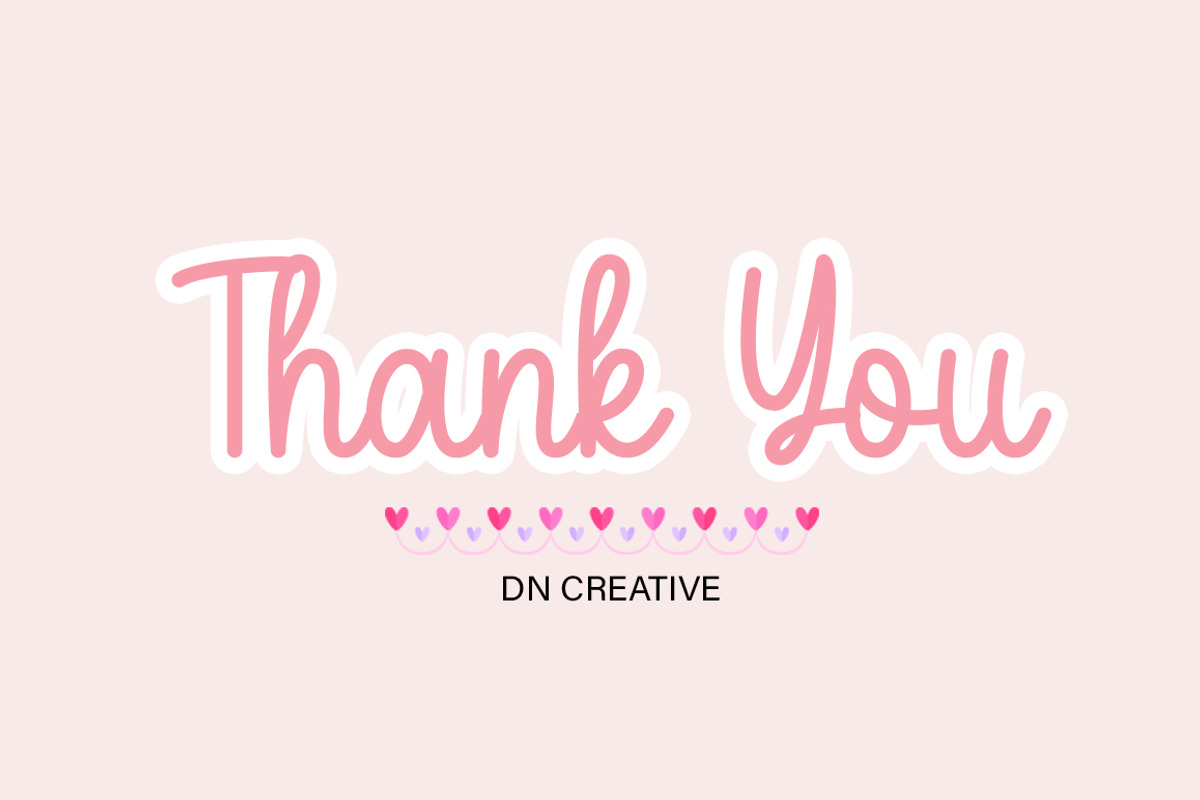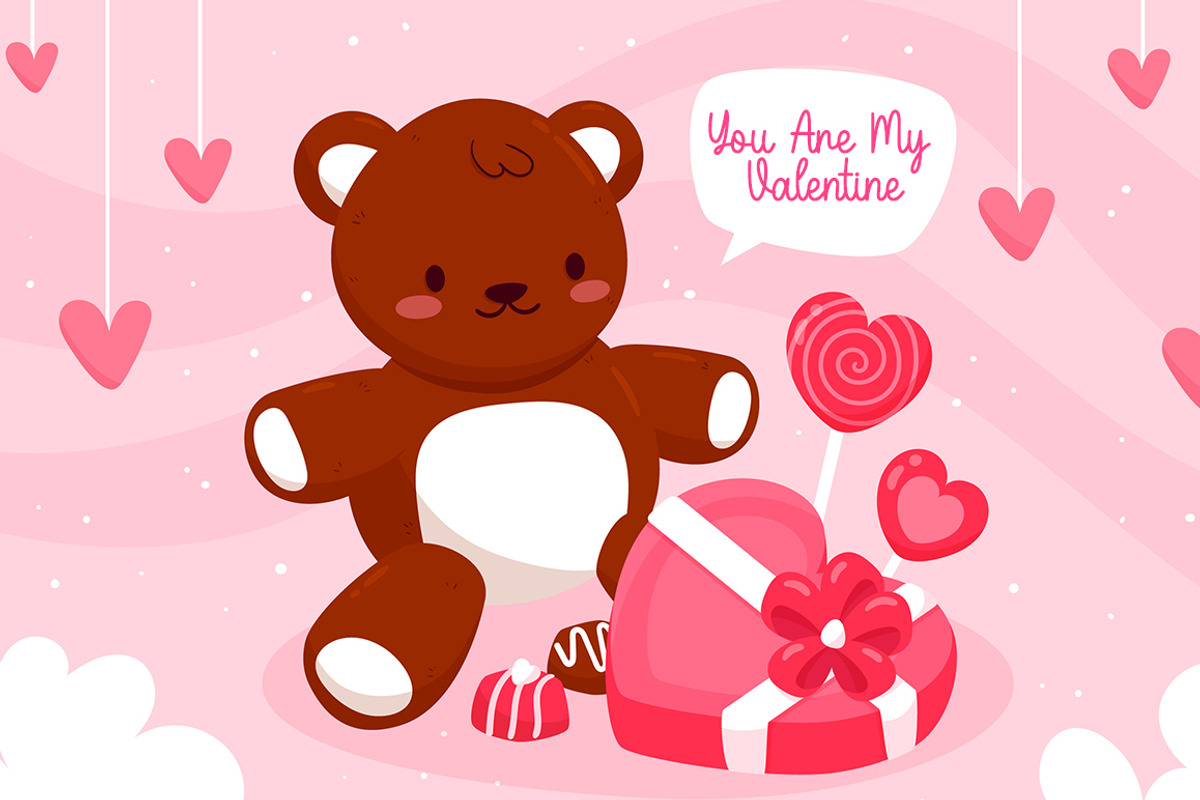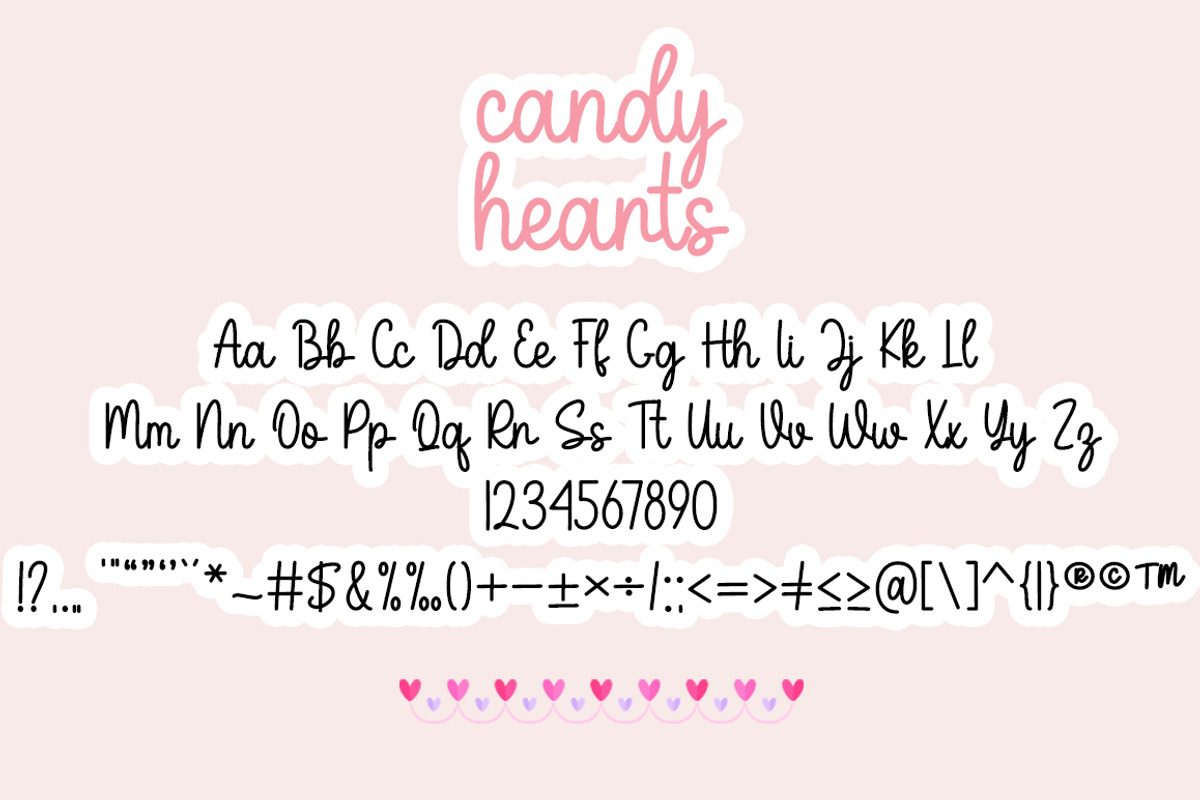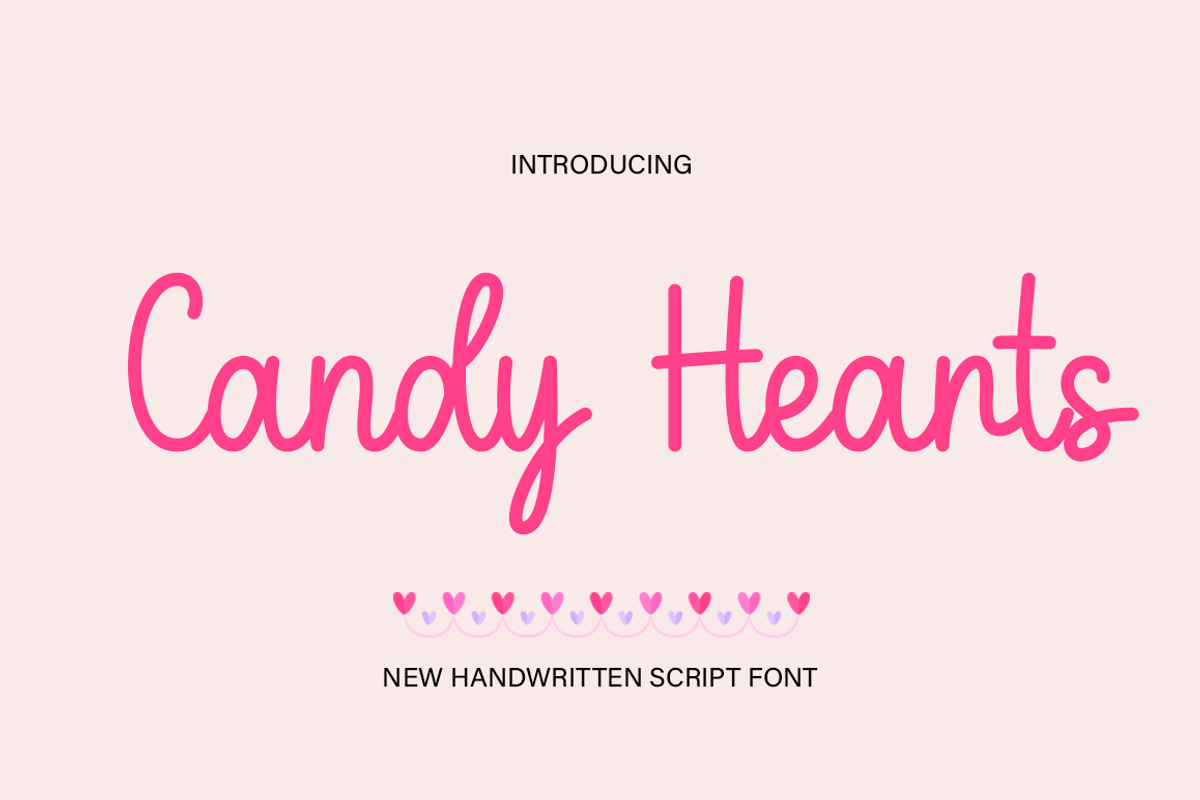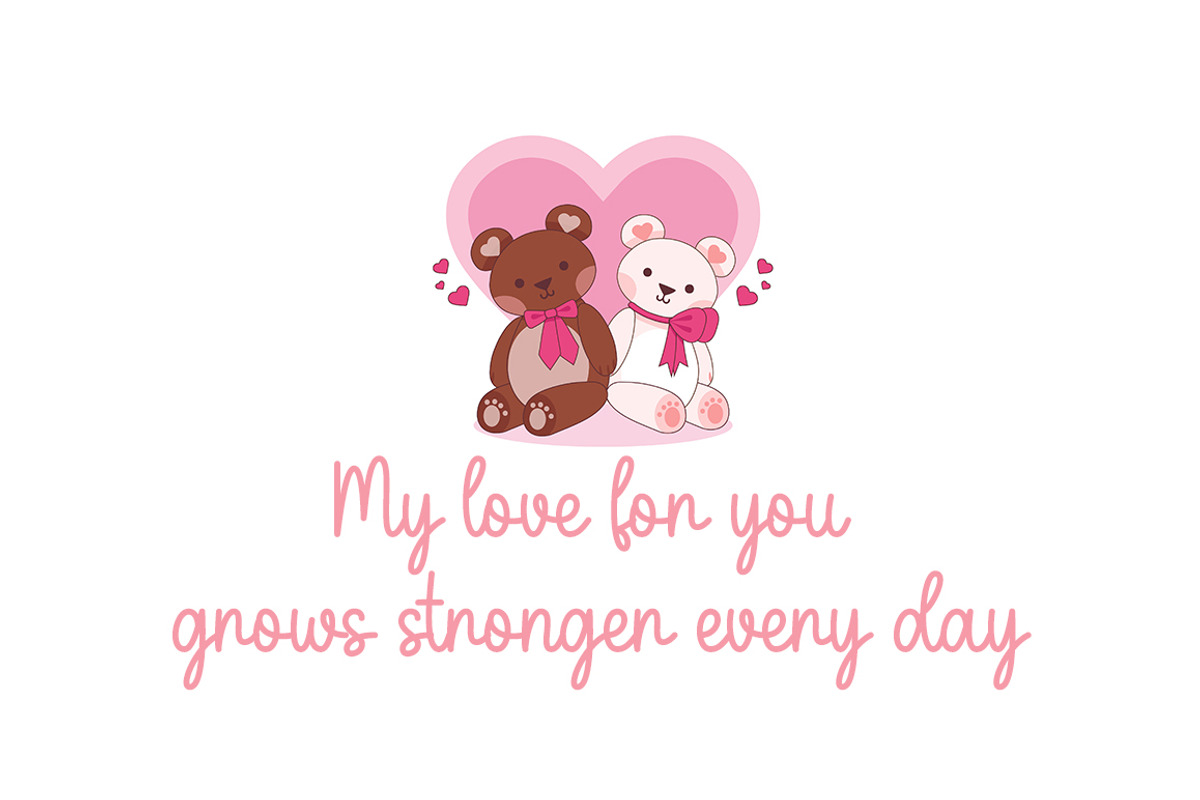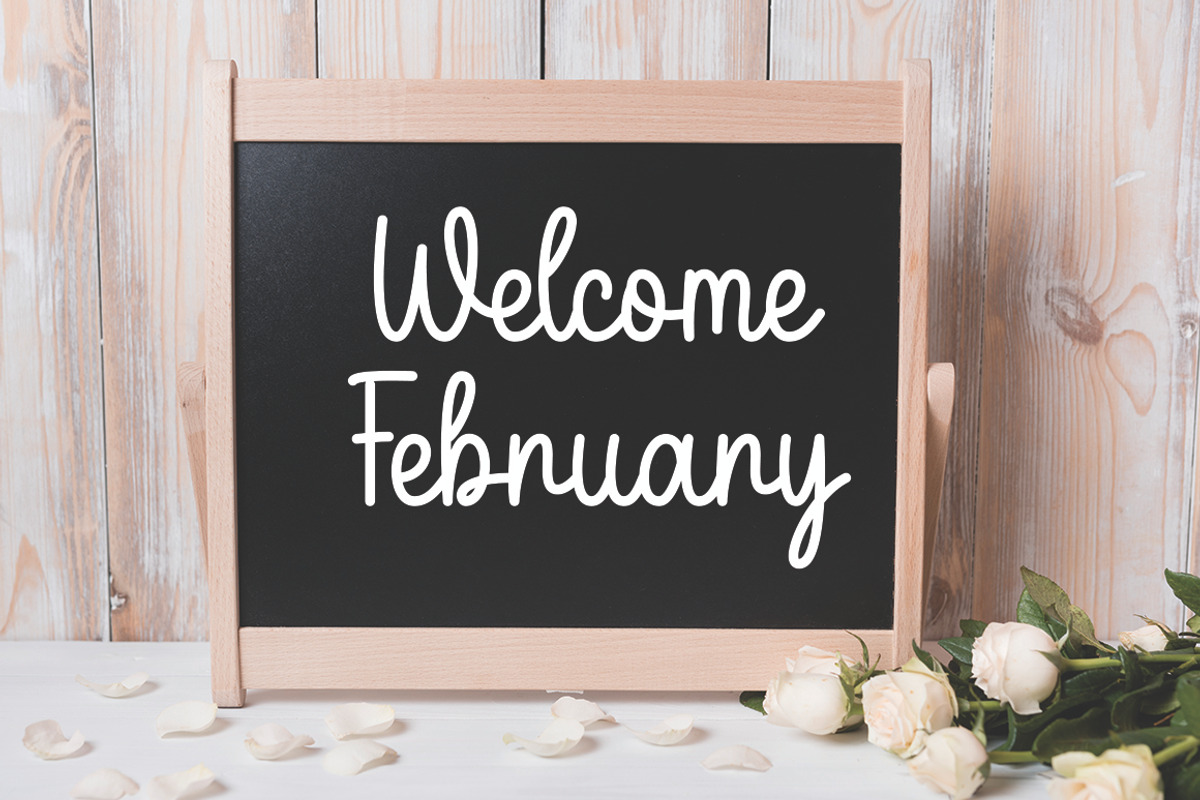
Candy Hearts
Candy Hearts is a graceful, modern calligraphic font. With its beautiful rhythm, this font will help you create gorgeous and classy compositions. Use it for branding projects, invitations, web graphics, cards, and many more!